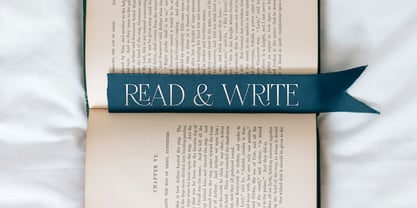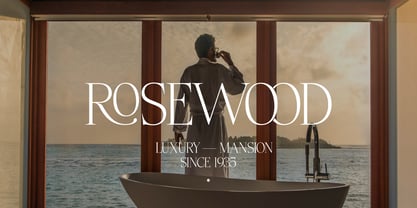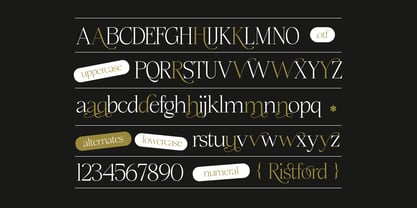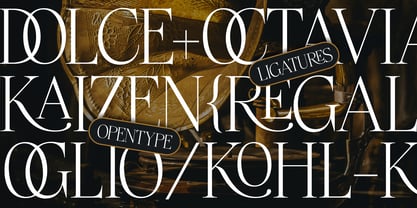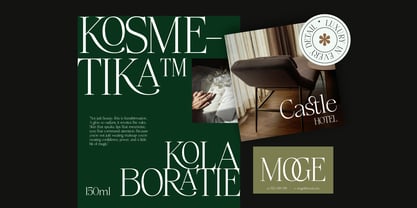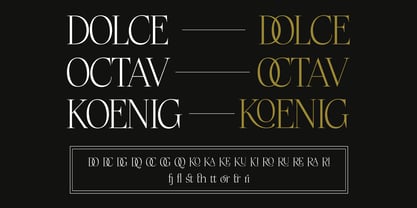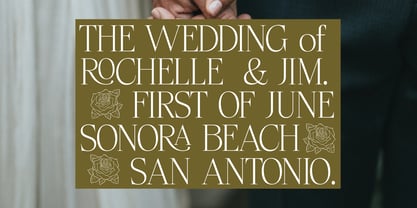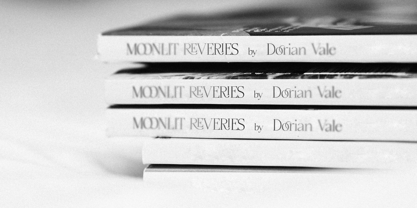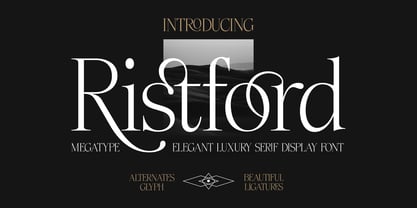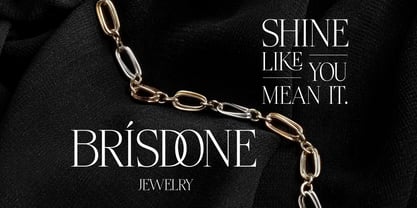
Ristford
The Ristford Font Family was designed by M Akmal and published by Mega Type. Ristford contains 1 styles.
INTRODUCING Ristford - Elegant Luxury Serif Display Font.
Ristford is an elegant luxury serif font with unique letterforms that blend elegance with contemporary design and are full of 90s retro personality. This beautiful font will grab your audience’s attention and make your promotions and projects stand out.
Bring your branding to life and add a touch of modernity and style with Ristford. Use it for headlines, titles, branding projects, Logo design, packaging, magazine headings, advertising, short or long text, social media and much more.
- All Uppercase and Lowercase
- Alternates and Ligatures